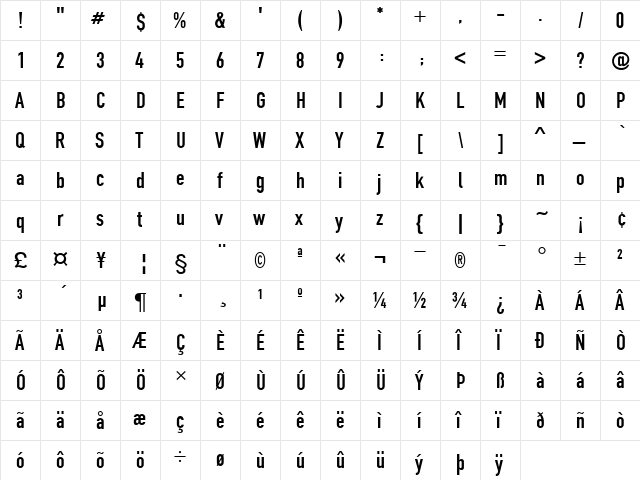
Roadgeek 2005 Engschrift Regular
Design Context for Roadgeek 2005 Engschrift Typeface
Roadgeek 2005 Engschrift is a composed and adaptable typeface that performs quietly and consistently across a wide range of design contexts.